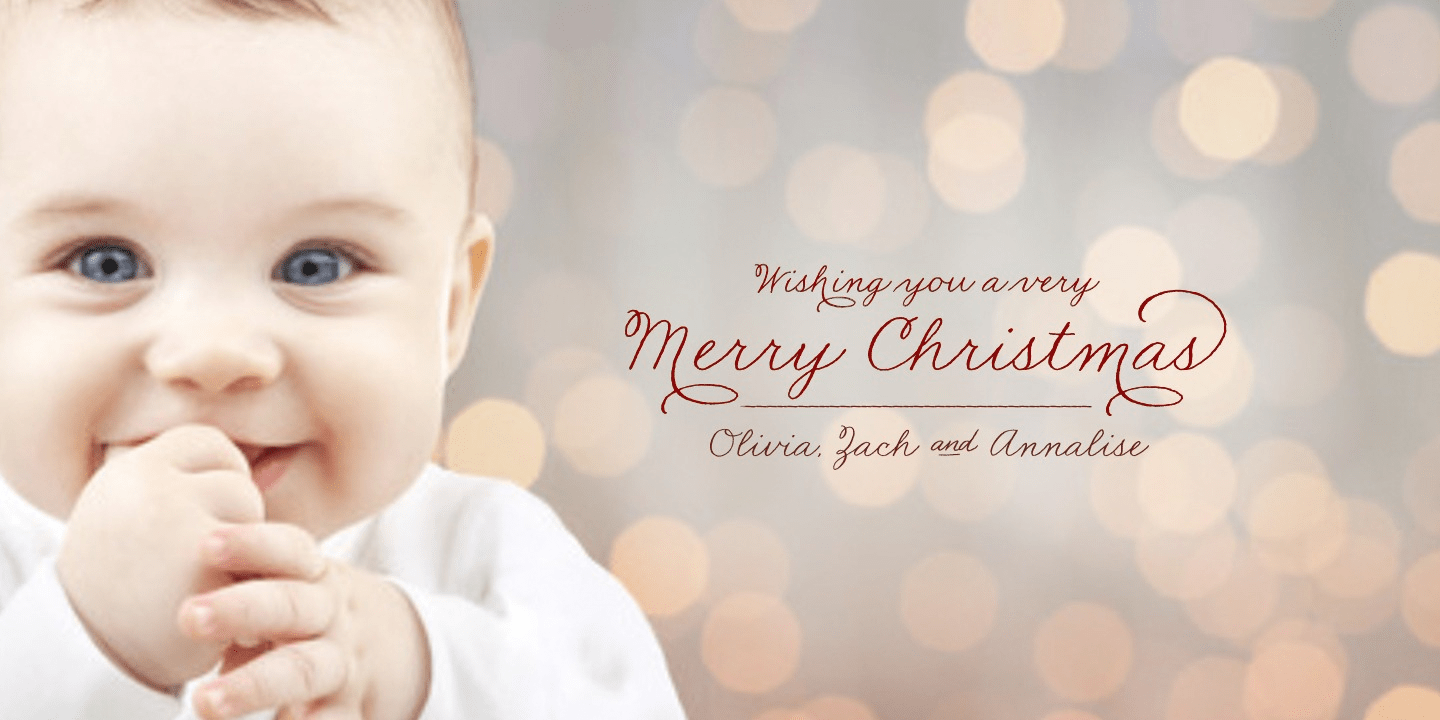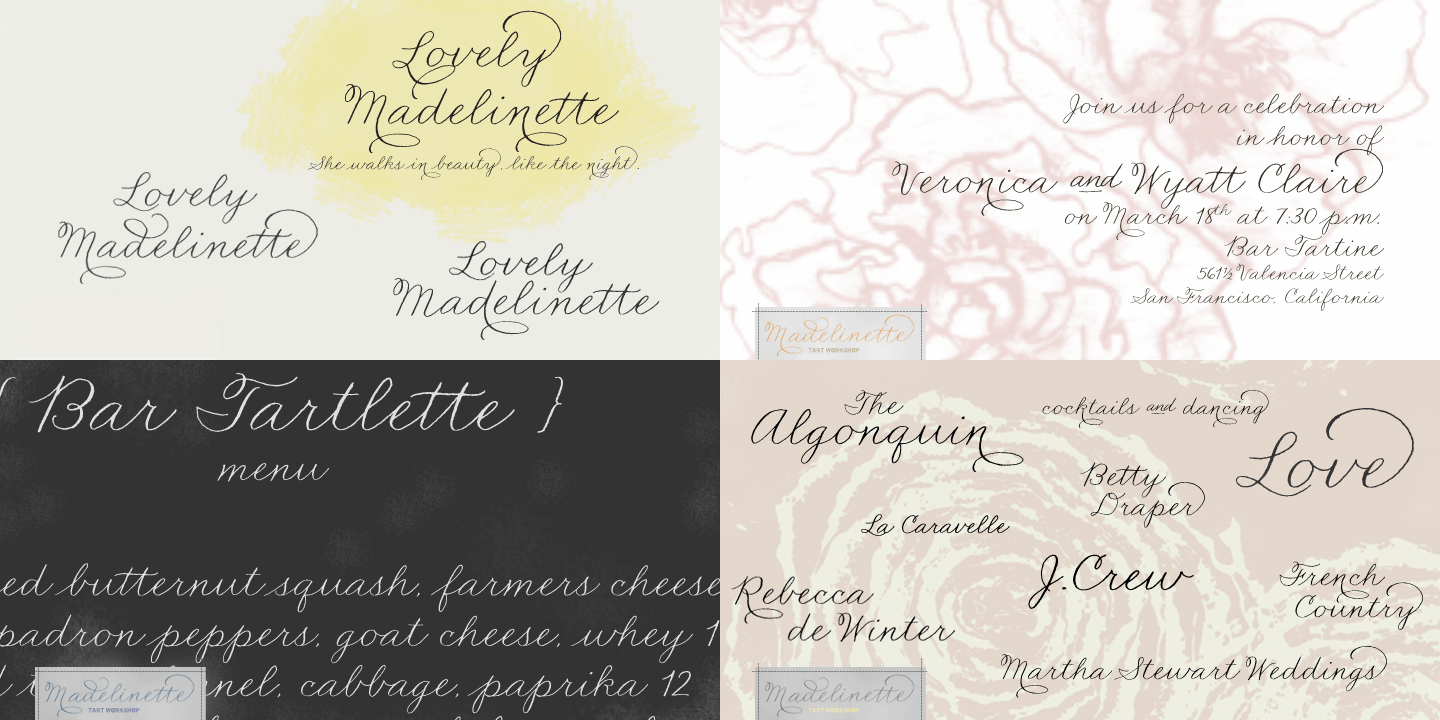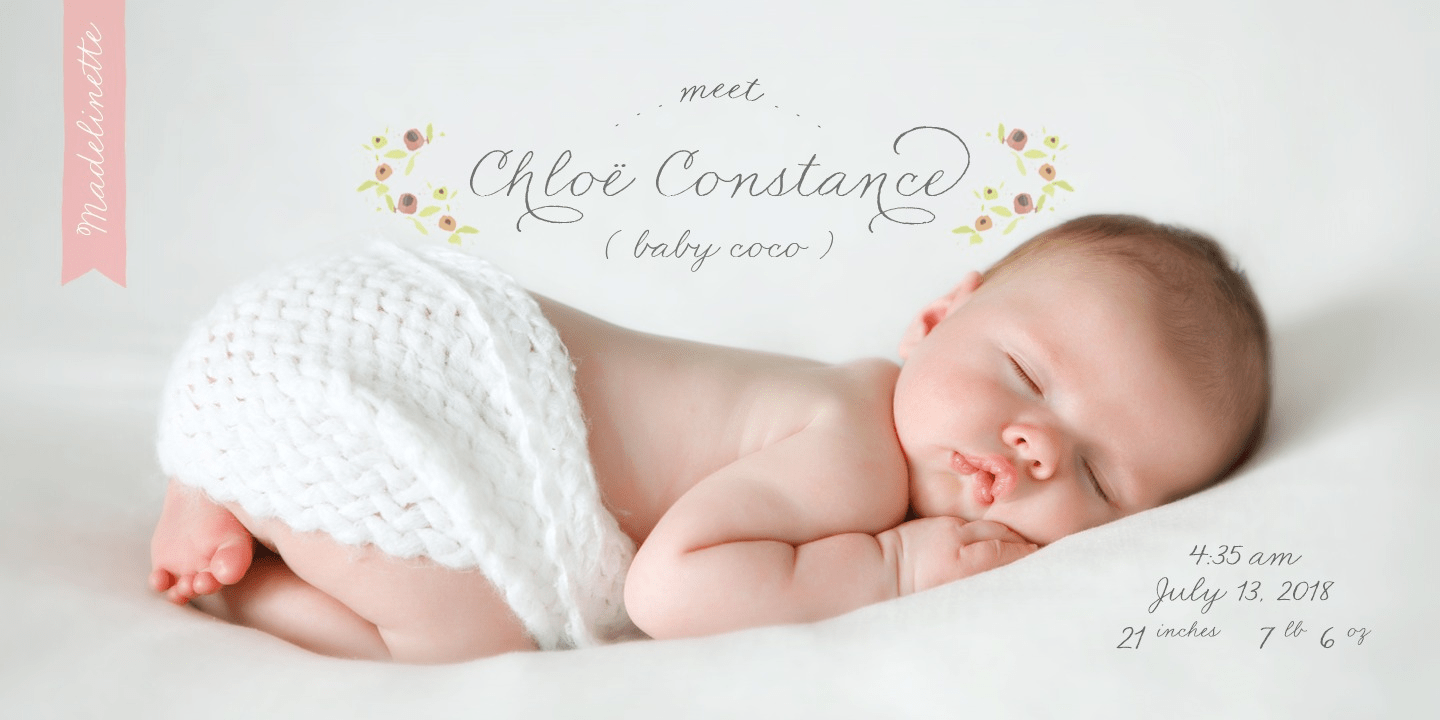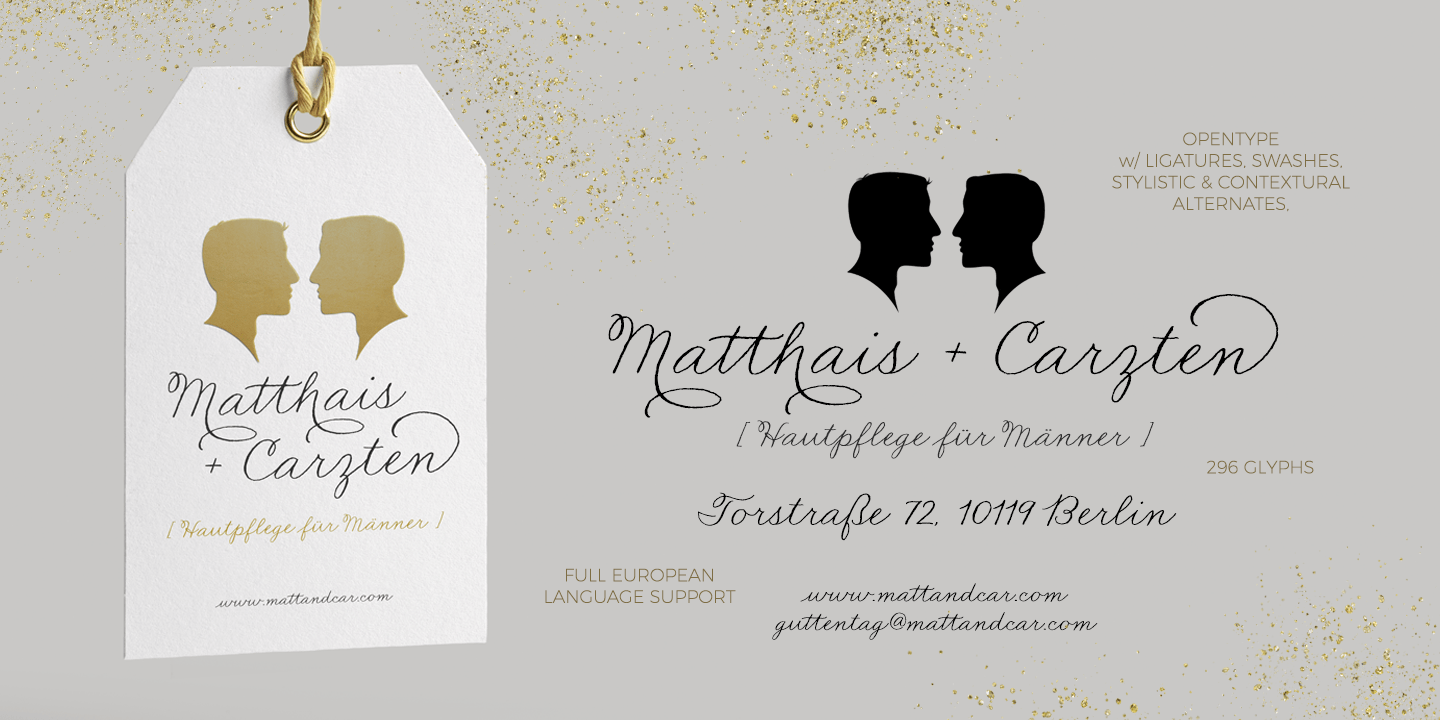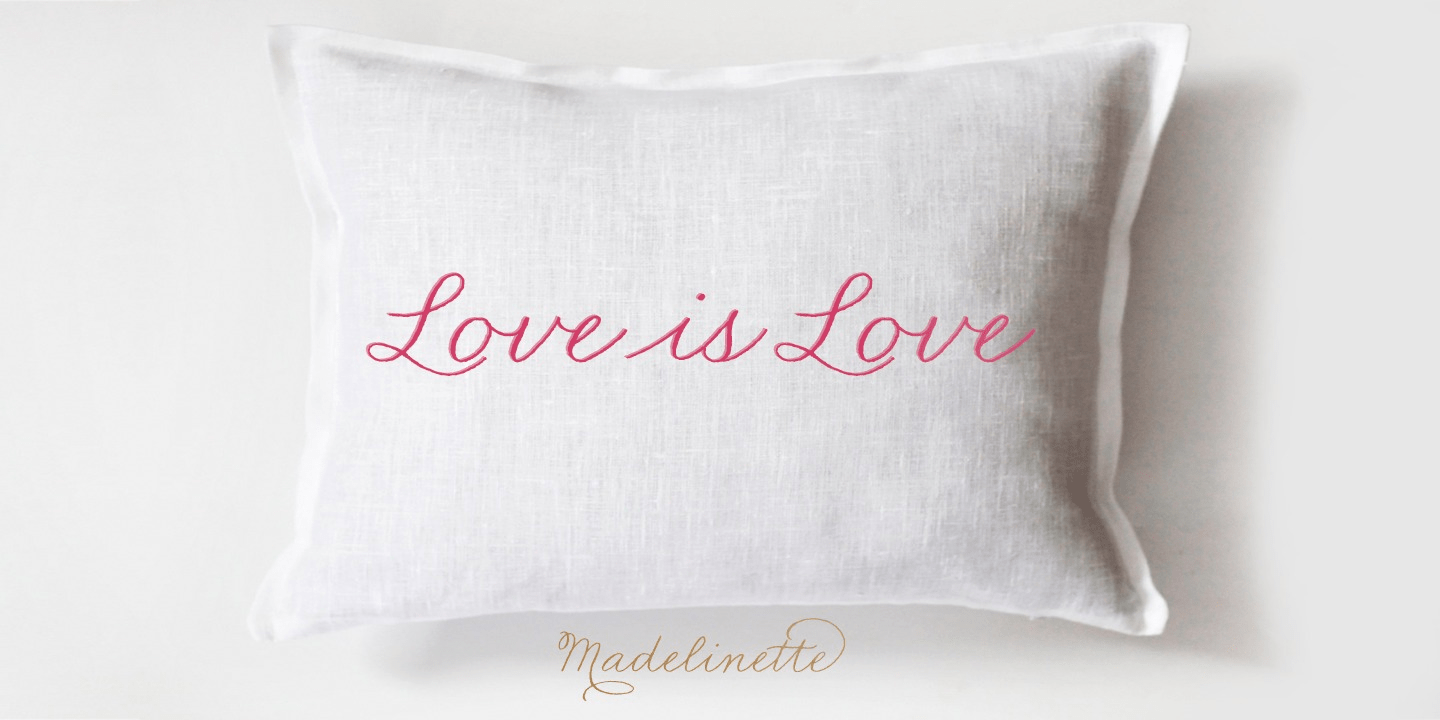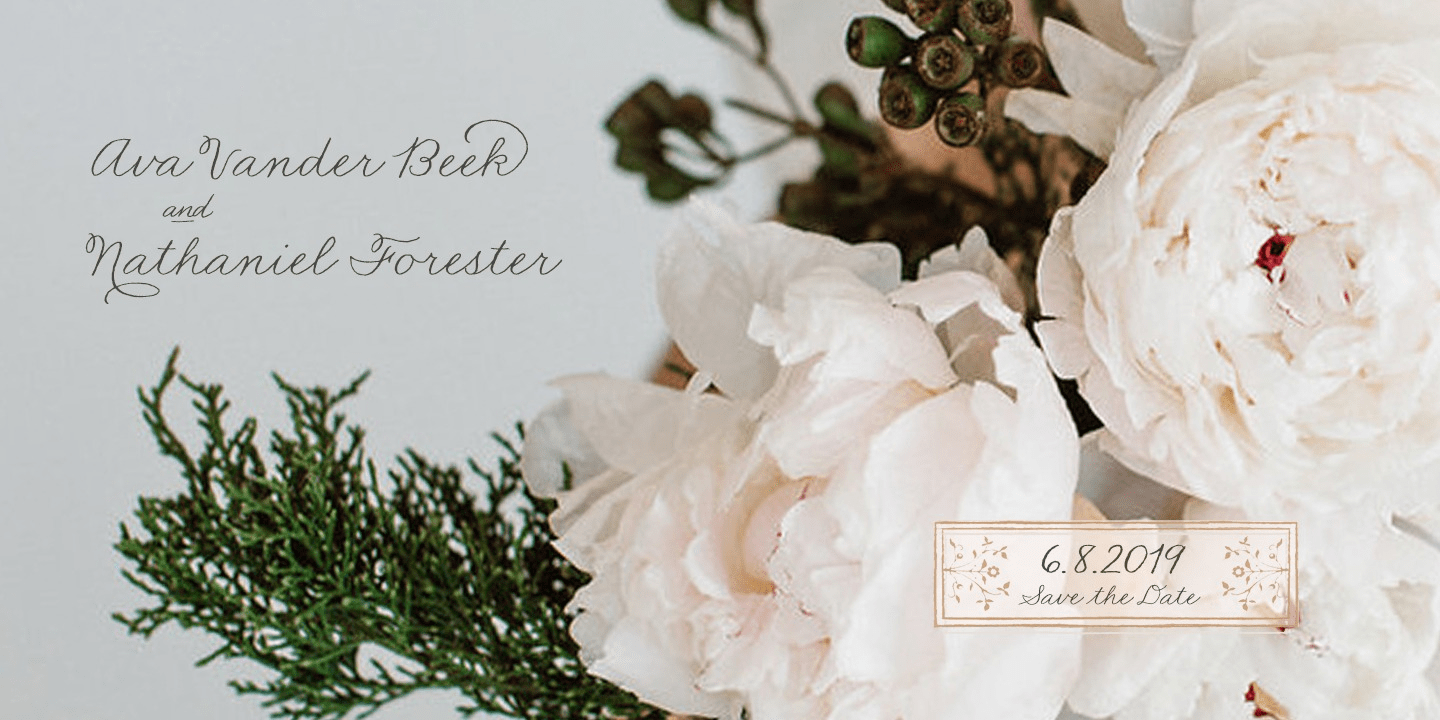
About Madelinette
Simple. Classic. The beautiful handwriting of your mother. Madelinette is inspired by Palmer Method which was introduced to the US in 1894 as a modern alternative to Spencerian. The method won many awards including the Gold Medals at the Panama Pacific…